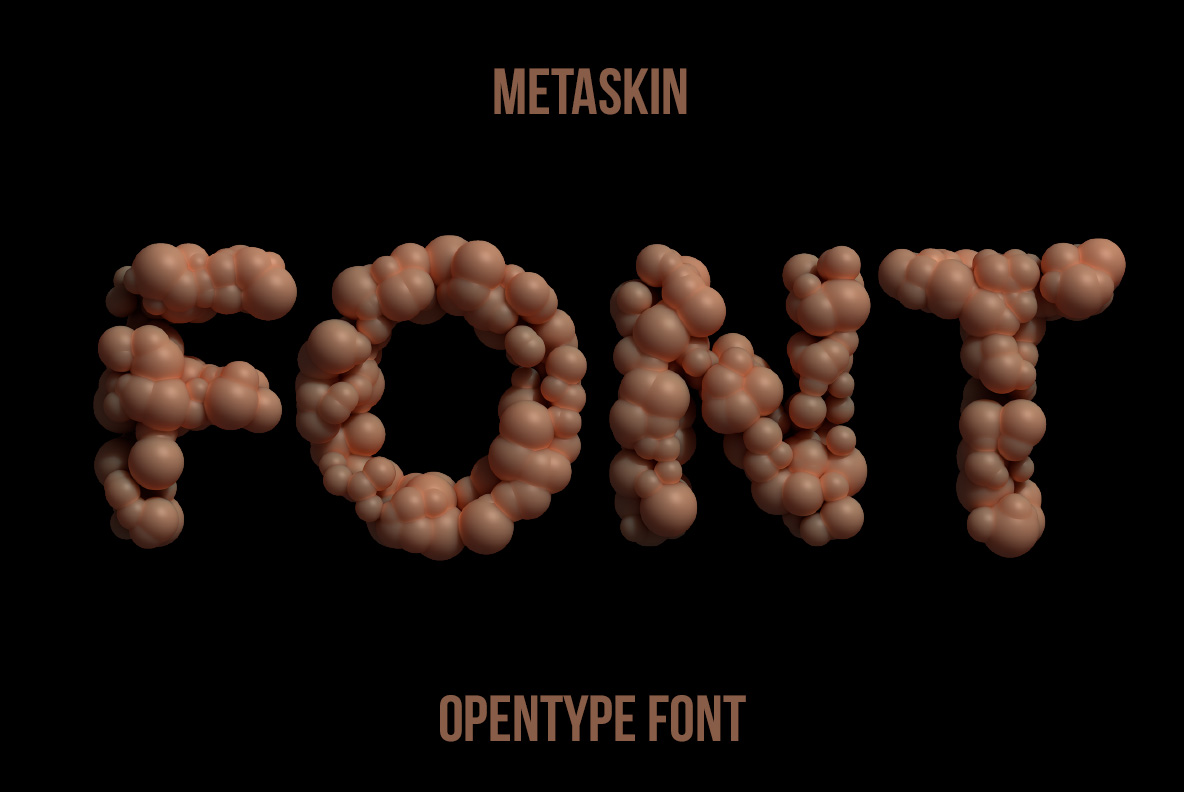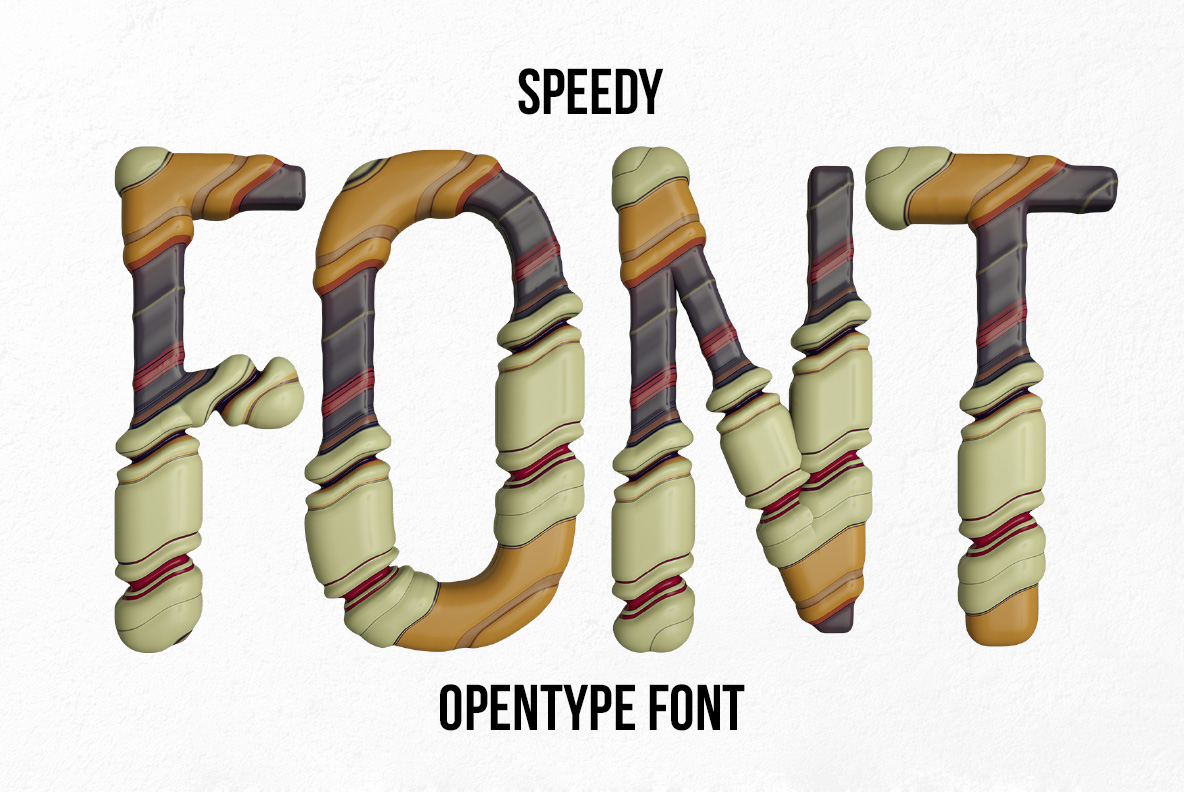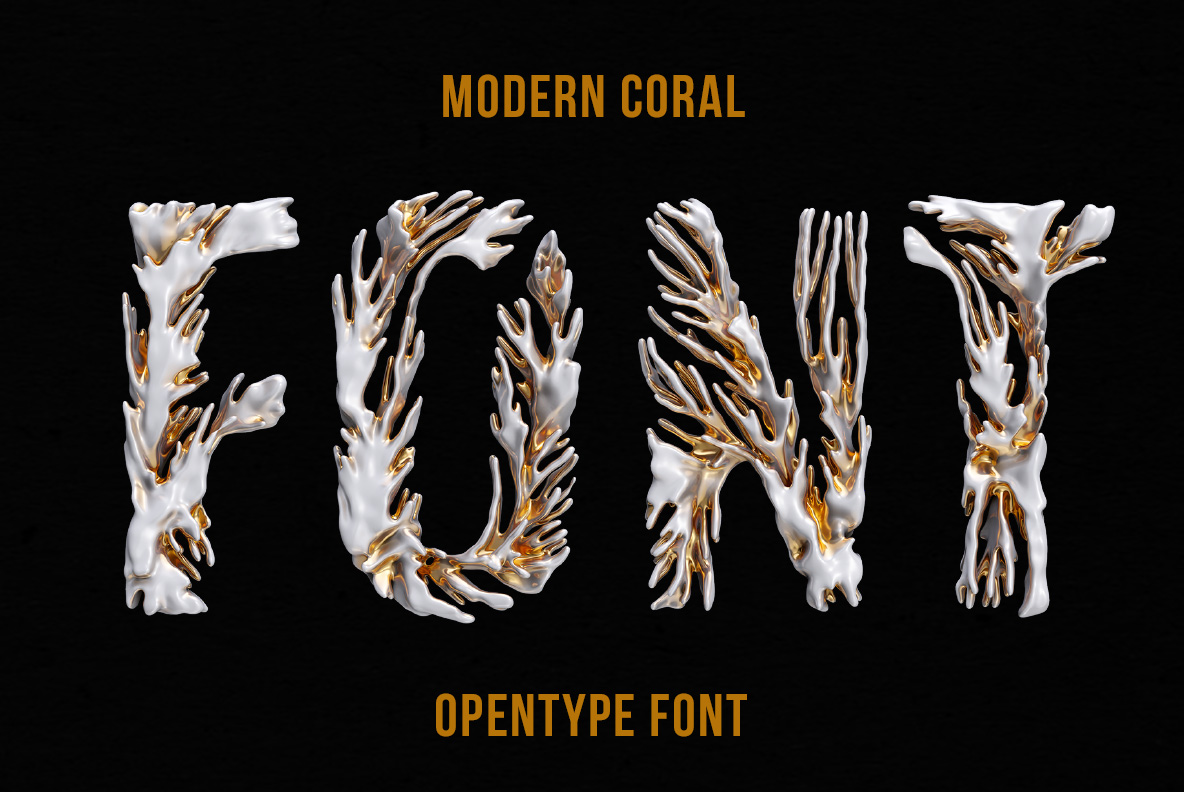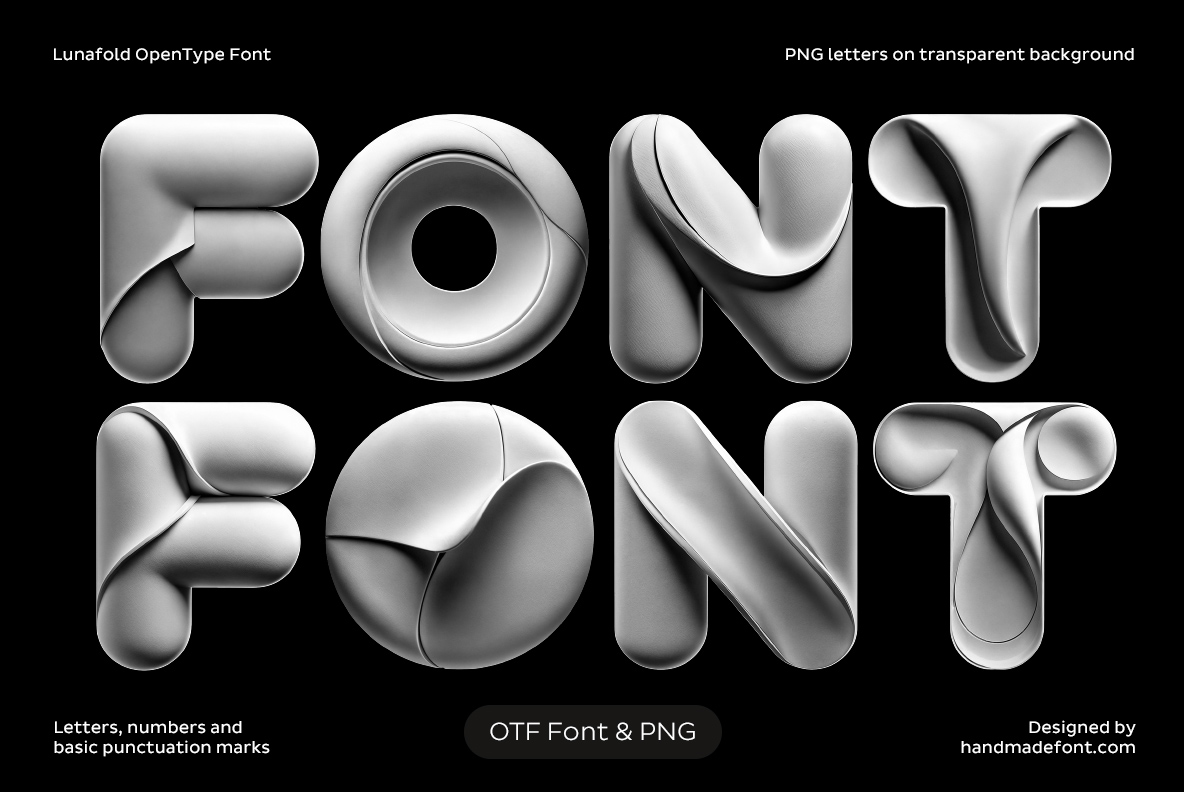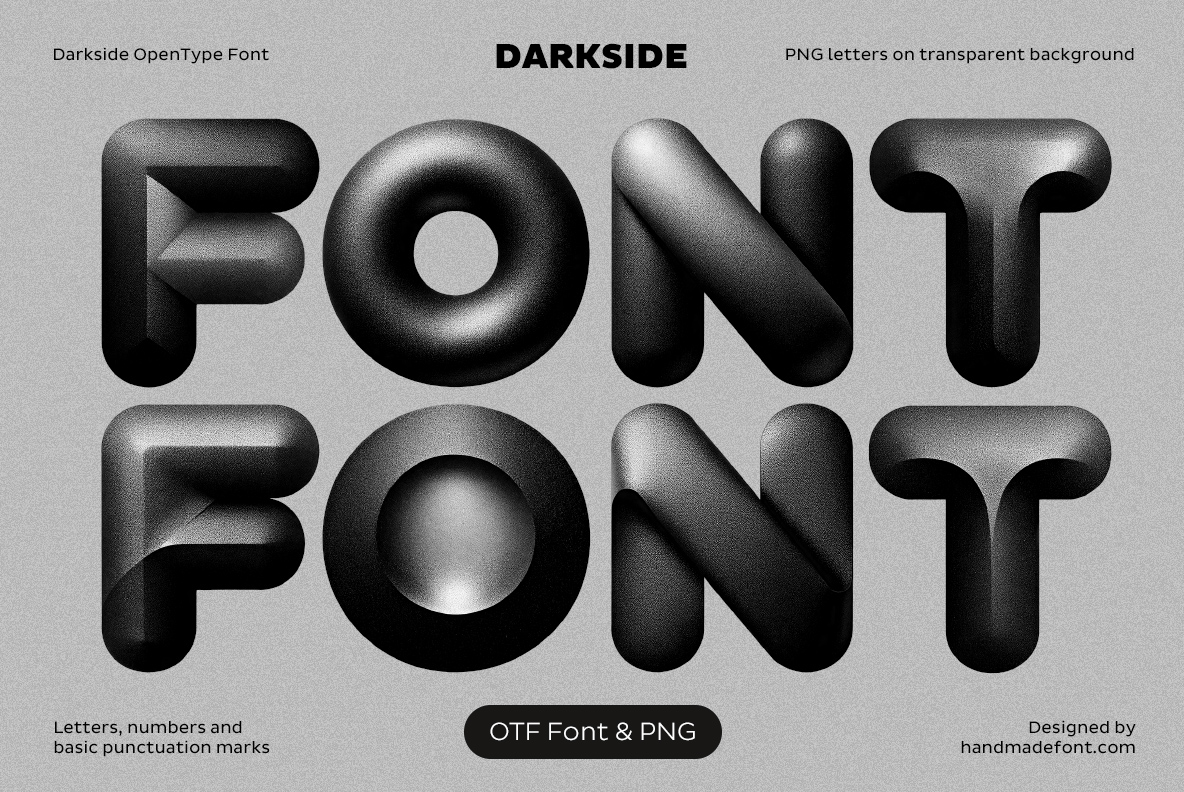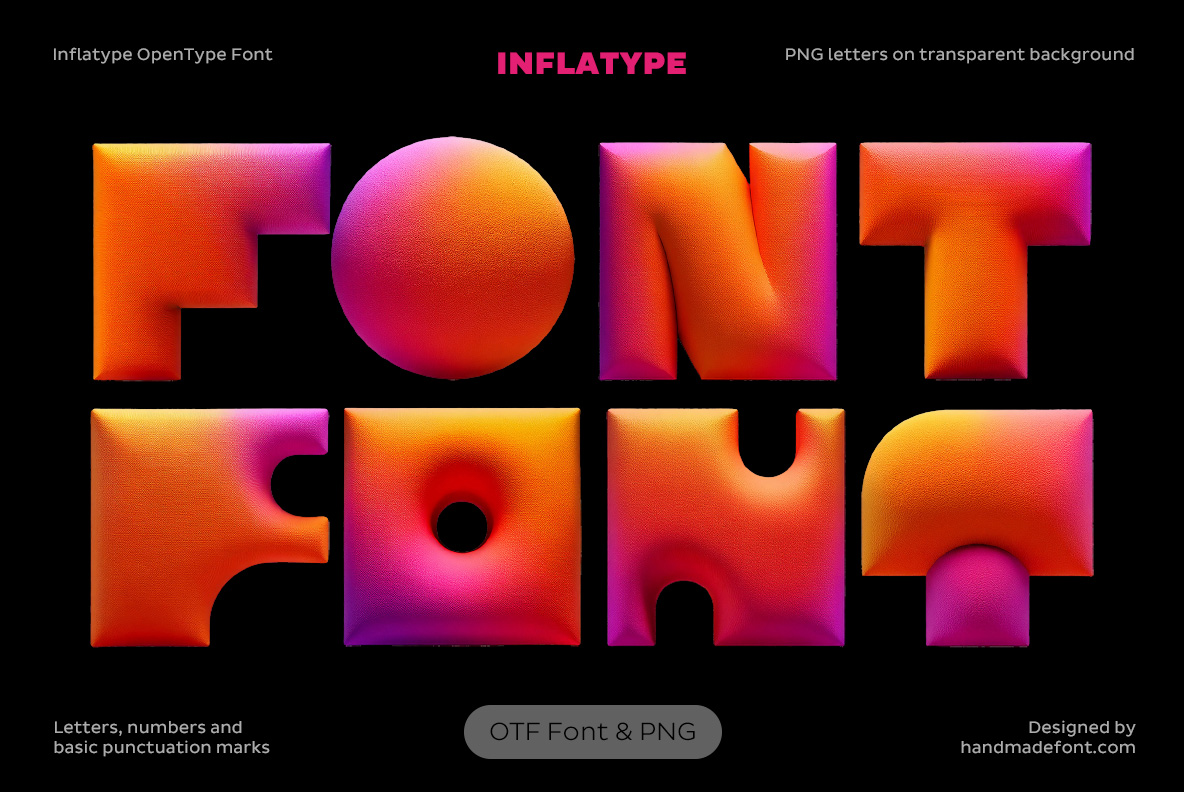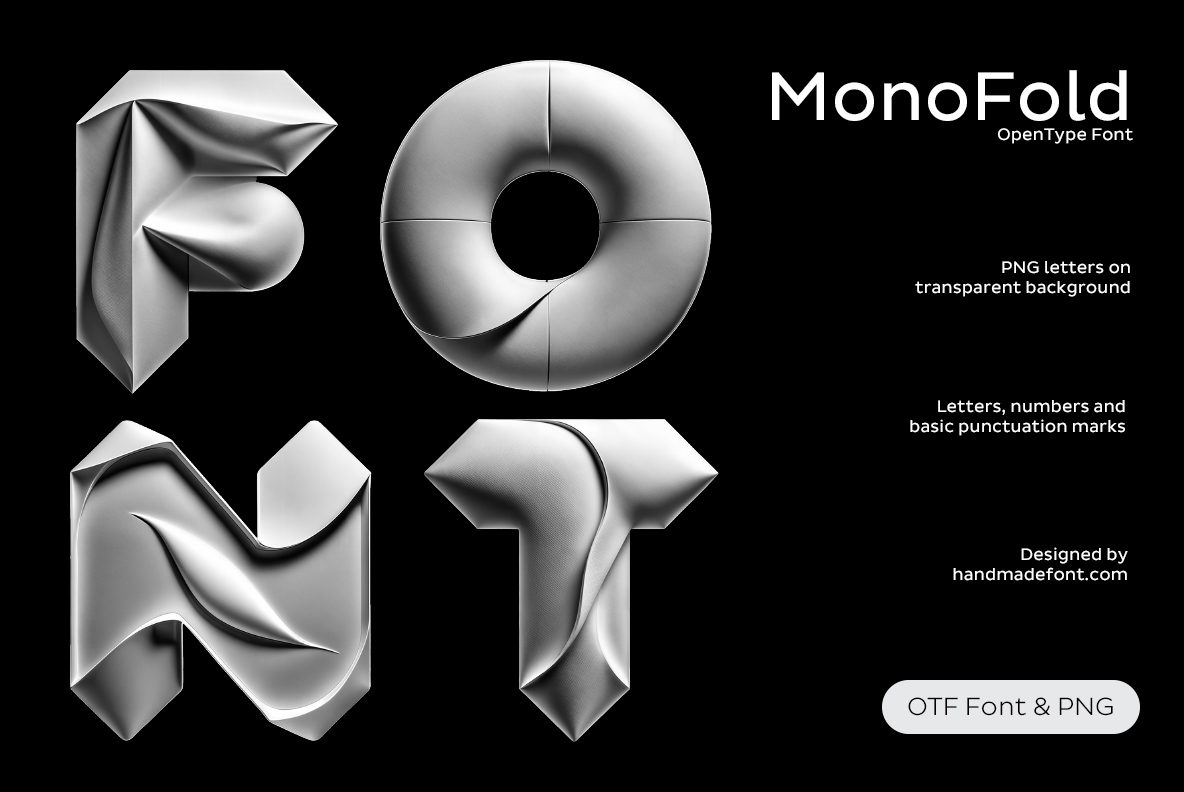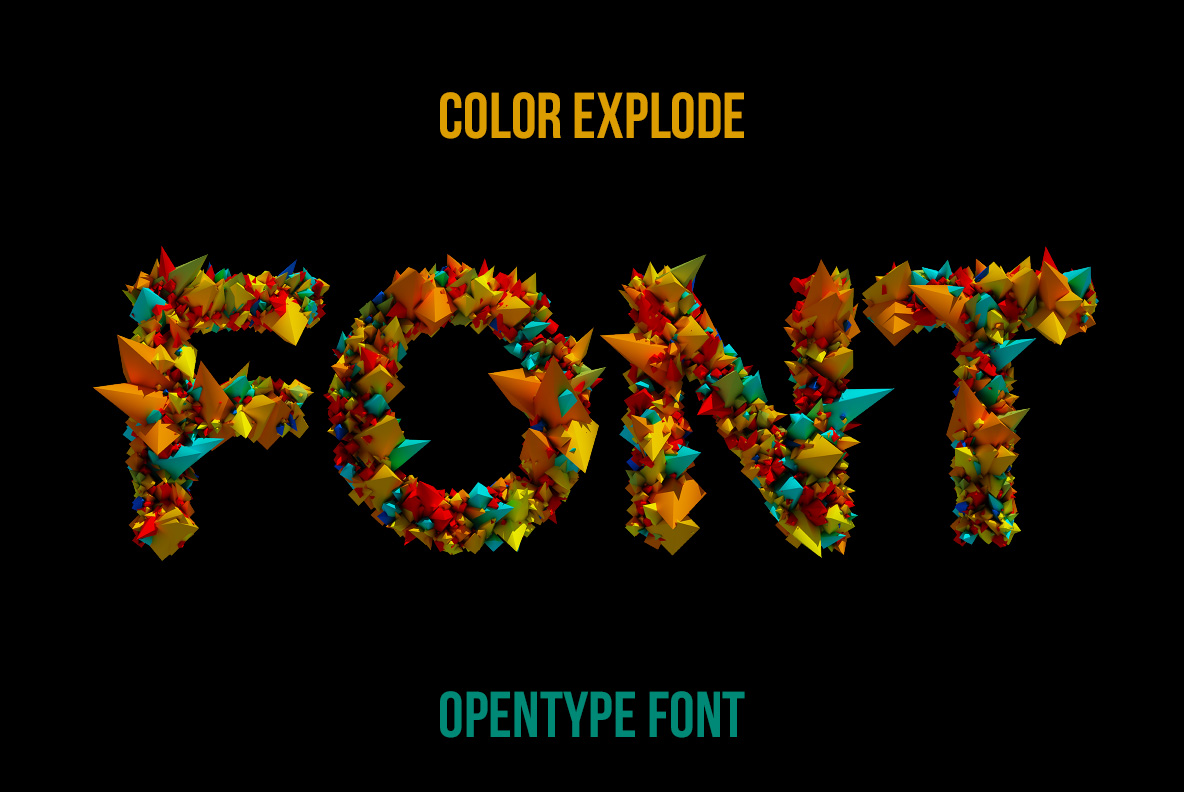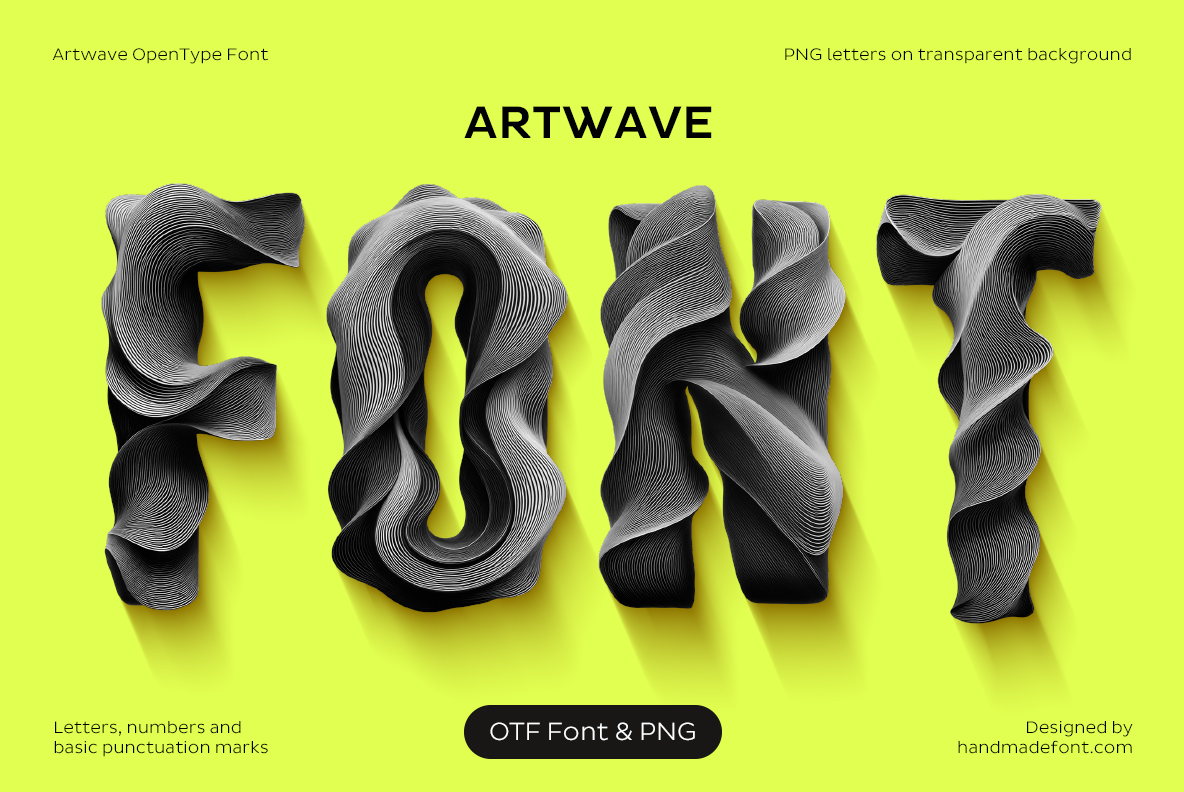
Experimental Fonts – Unusual & Creative Typography
Experimental Fonts explore typography beyond familiar shapes and conventional materials. Discover unusual letterforms built around sculptural forms, organic textures, folds, inflated surfaces, abstract geometry and unexpected visual structures. This collection is made for designers looking for distinctive typography that can become the central visual element of a poster, identity, editorial layout or creative campaign.
Experimental Fonts is where the shop puts the alphabets that do not belong to a material. Nothing here is made of bread or bark or gold; the subject is the letterform itself, pulled out of shape until it almost stops working. Almost is the operative word. Each one still reads, which is the difficult part and the reason these took longer to make than anything on the other shelves.
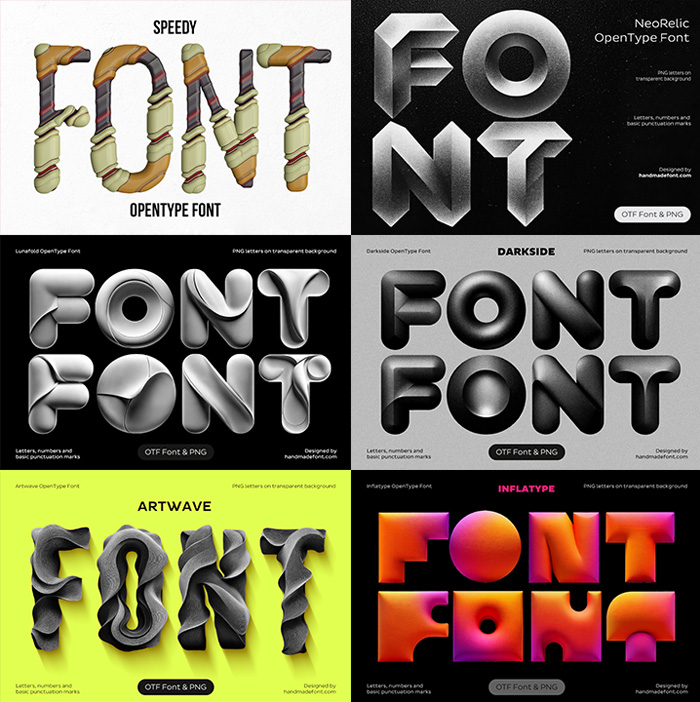
Letters That Went Somewhere Else
Spectral Font with abstract sculptural letterforms and unusual textures
Spectral Font
Flat black capitals shattered by oil-slick shards that escape past the edges.
Metaskin Font with organic rounded letterforms and realistic surface texture
Metaskin Font
Letters grown out of clustered flesh-coloured spheres.
Speedy Font with layered flowing letterforms and abstract surface patterns
Speedy Font
Segmented tubes in olive and rust. More machine part than letter.
Modern Coral Font with branching coral-inspired white and gold letters
Modern Coral Font
Bleached coral branches growing into the shape of each capital.
Lunafold Font with smooth folded sculptural letterforms
Lunafold Font
Chrome sheet folded over on itself, soft where you expect an edge.
Darkside Font with black rounded folded letterforms and dramatic texture
Darkside Font
Fat matte-black forms, inflated and lit hard from one side only.
Inflatype Font with soft inflated orange and pink letterforms
Inflatype Font
Blown-up letters melting from orange through to magenta.
MonoFold Font with metallic folded monochrome letterforms
MonoFold Font
Silver fabric pinched and folded, and somehow still legible.
Color Explode Font made from colorful angular geometric fragments
Color Explode Font
Capitals blown apart into coloured shards, caught mid-scatter.
Artwave Font with flowing black and white layered wave textures
Artwave Font
Grey forms combed into fine ridges, twisted the way clay moves under a tool.
NeoRelic Font with monumental geometric monochrome letterforms
NeoRelic Font
Faceted monolith capitals in grainy silver on black.
Who Buys Experimental Fonts
Tech and crypto brands take the chrome ones, fashion takes the folded and inflated ones, and music covers take almost all of them. Design studios use them for their own identities, where a normal typeface would say nothing. They also do well on festival graphics, exhibition posters and title sequences. A caution worth stating plainly: these are single-word faces. Put a sentence in one and it stops being readable.